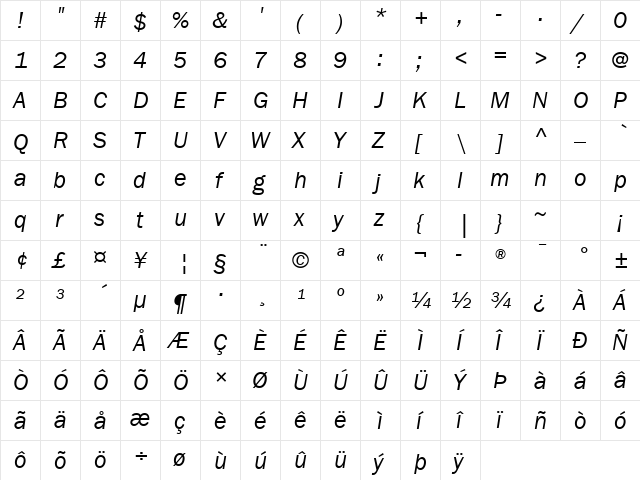
ITC Franklin Gothic LT Com Book Italic Font Preview
| Foundry | Linotype GmbH |
| Designer | Victor Caruso |
Design Context for ITC Franklin Gothic LT Com Typeface
ITC Franklin Gothic LT Com has the quiet confidence of well-executed sans-serif typography: versatile, unobtrusive, and dependable at any size. Its italic angle brings a sense of urgency and motion to the letterforms. Its slender proportions lend an understated elegance to any composition.
A natural fit for high-end product packaging, luxury brand identities, and refined web typography.
Font Pairing: Pair ITC Franklin Gothic LT Com with a medium or bold serif for headlines — the weight contrast creates an elegant, high-end feel.
Pro Tip: Use ITC Franklin Gothic LT Com with generous tracking and line-height for the most luxurious effect — light sans-serifs reward spacious, considered layouts.